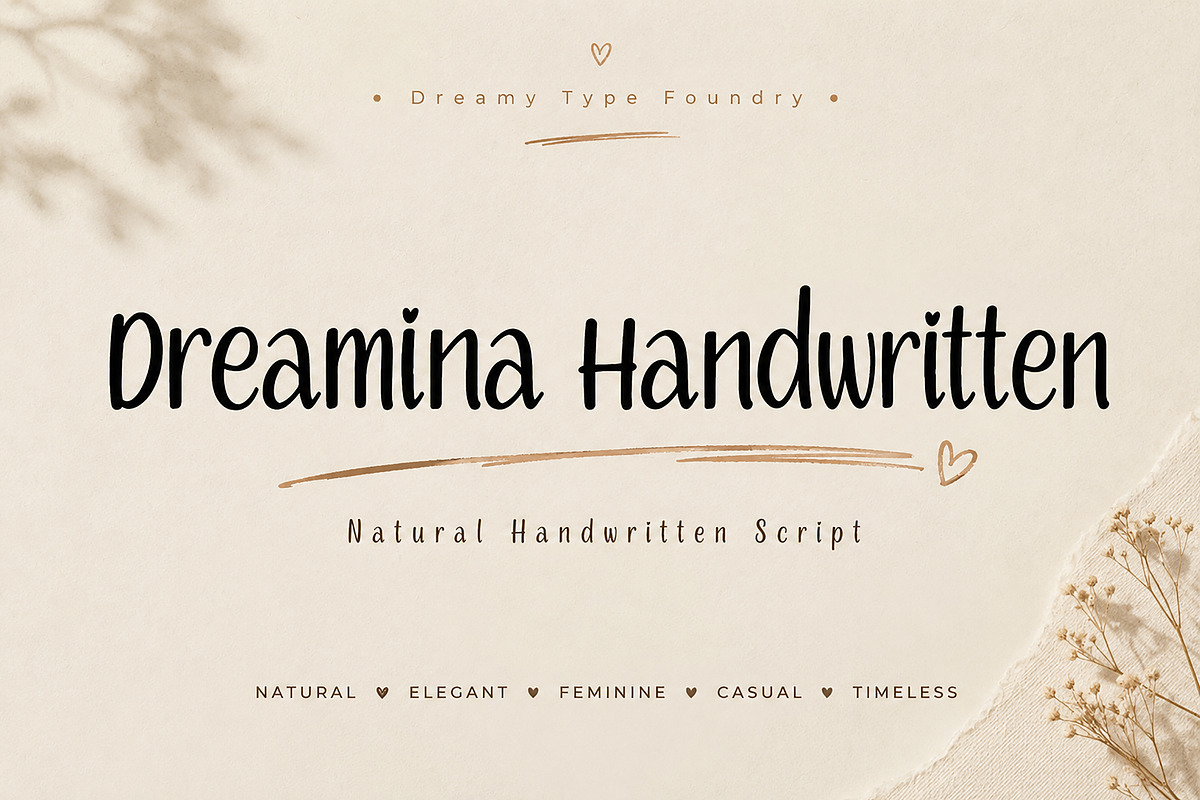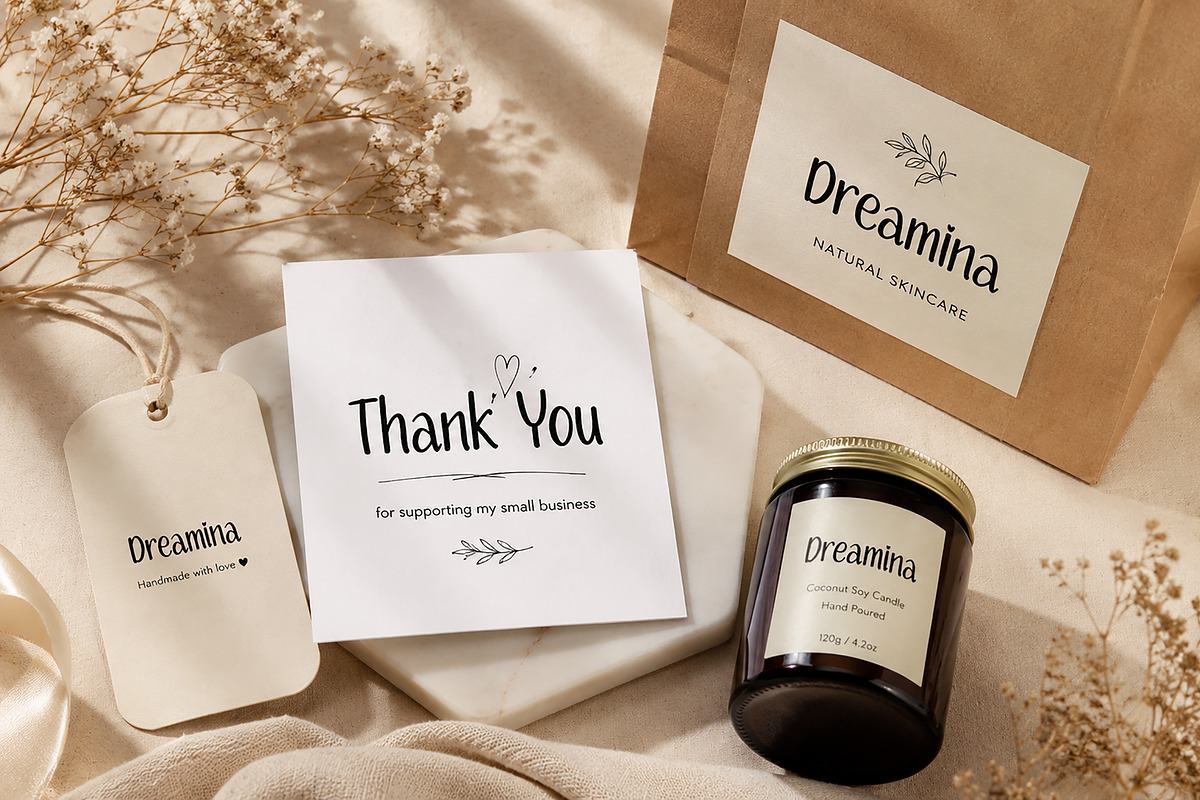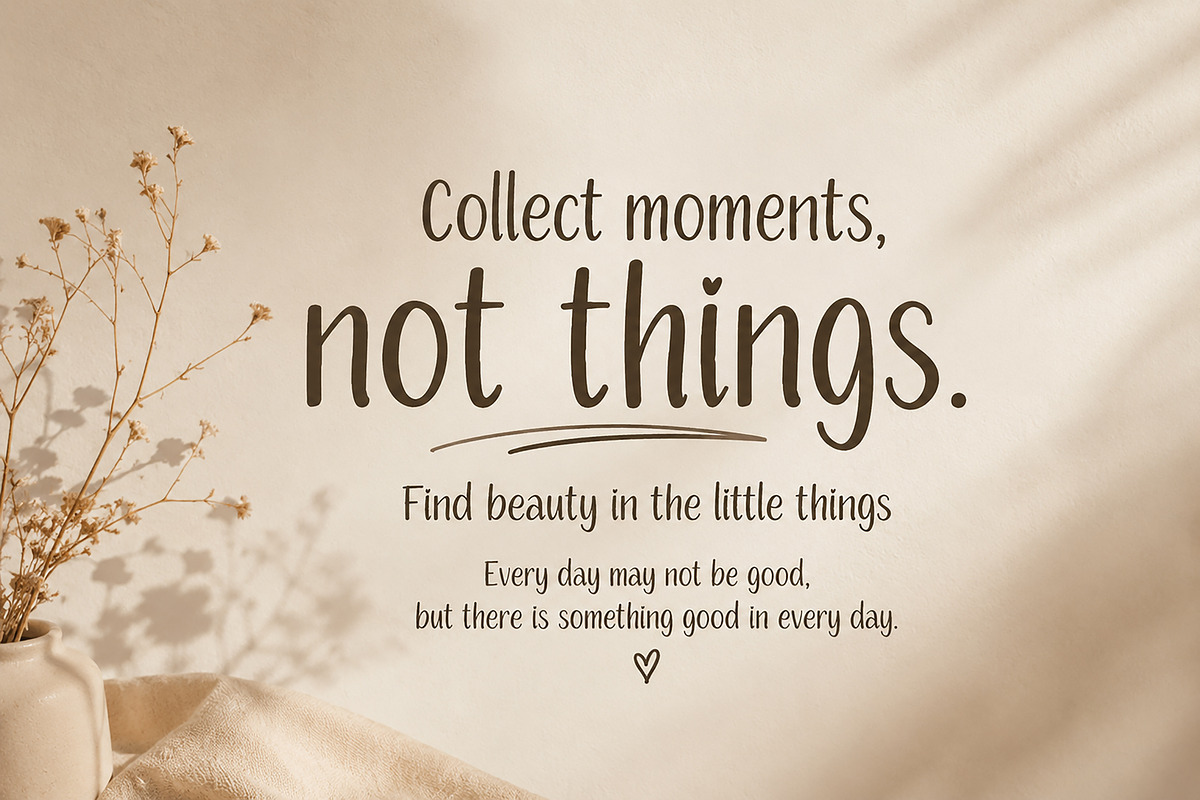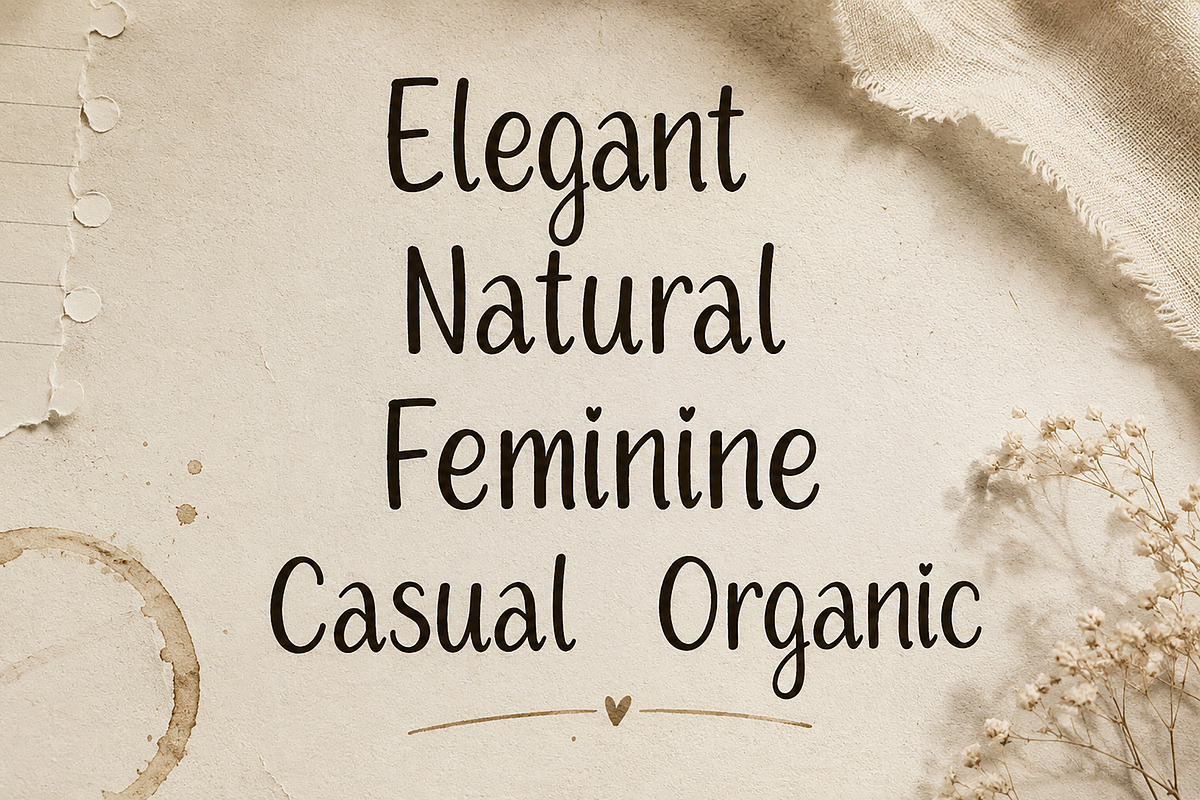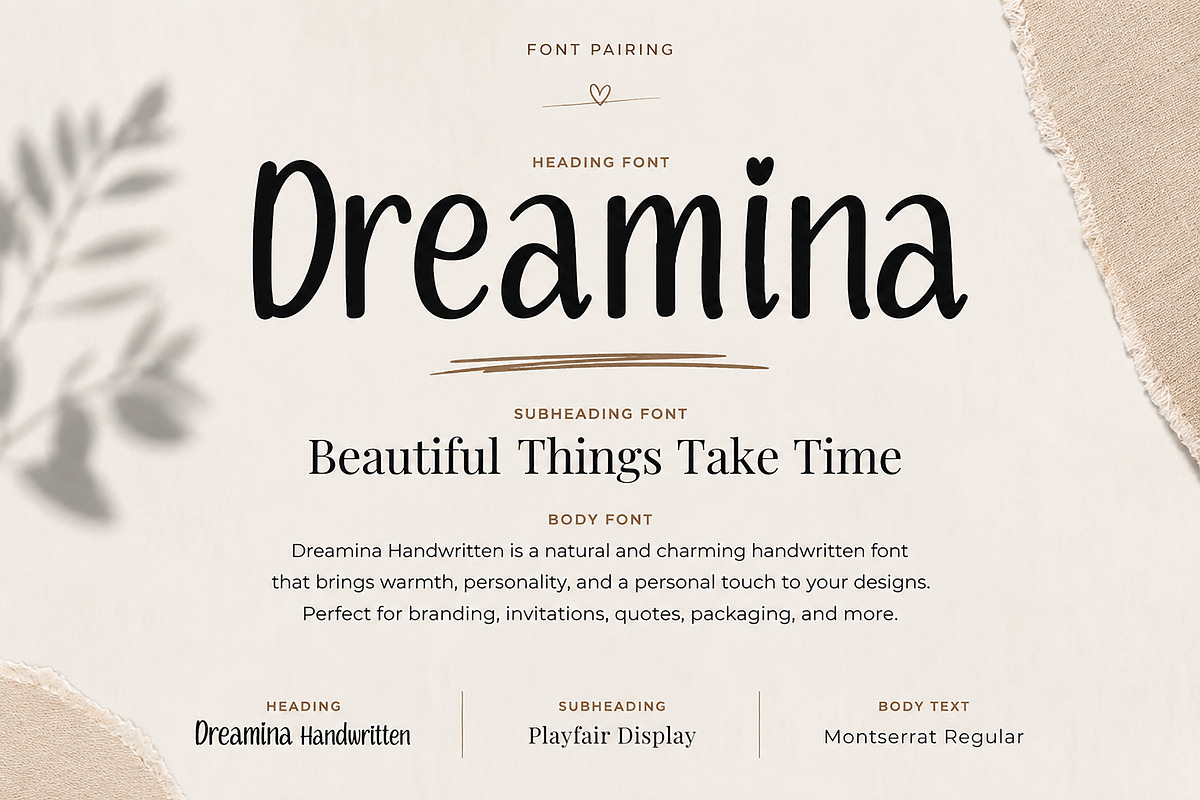
Dreamina Handwritten
Dreamina Handwritten is a natural and charming handwritten font designed to bring warmth, personality, and authenticity to your creative projects. With its smooth strokes, playful curves, and organic letterforms, Dreamina creates a soft, elegant, and approachable feel that works beautifully across modern branding and personal designs.
Carefully crafted to capture a genuine handwritten look, this font is perfect for adding a personal touch while keeping your designs stylish and effortless.
Perfect for logos, branding, packaging, wedding invitations, social media posts, quotes, signatures, product labels, greeting cards, and more.
Whether you're creating feminine branding, lifestyle content, or handmade product packaging, Dreamina Handwritten delivers a warm and timeless aesthetic.
Smooth and Natural Letter Flow
Bring a natural handwritten touch to your next project with Dreamina Handwritten.
A natural and charming handwritten font with a soft, organic, and elegant feel. Perfect for branding, packaging, logos, and feminine design projects.